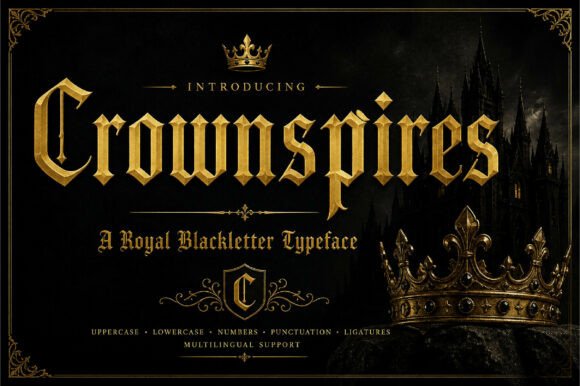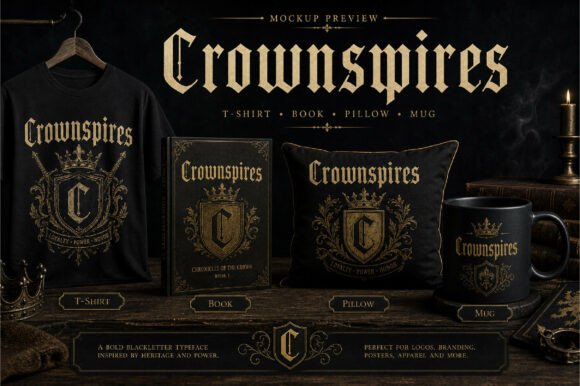
Unleash the Grandeur of the Middle Ages with Crownspires Font
Step into the majestic world of Gothic typography with Crownspires, a regal display font that embodies the essence of medieval grandeur. This stunning blackletter script, infused with bold, spearhead-like strokes, is designed to add an air of authority, tradition, and mystique to your designs. Whether you’re a designer, craftsperson, or simply someone who appreciates the beauty of Gothic typography, Crownspires is the perfect choice for projects that demand a touch of sophistication and elegance.
The Majesty of Gothic Typography
Crownspires is more than just a font – it’s an experience. Its striking austerity and bold strokes evoke the grandeur of medieval architecture, while its intricate details and unique personality add a touch of mystique to any design. This royal, Gothic-style font is perfect for projects that require a sense of tradition, power, and class. From emblematic logos and brand identities to dramatic poster headlines and album covers, Crownspires is the ideal choice for designers seeking to create a lasting impression.
Design Possibilities with Crownspires
The versatility of Crownspires is one of its most compelling features. This majestic font can be used in a wide range of design applications, including:
- Emblematic Logos: Create a lasting impression with a logo that exudes power, tradition, and sophistication.
- Brand Identities: Establish a strong brand presence with a font that commands attention and respect.
- Dramatic Poster Headlines: Grab attention with bold, eye-catching headlines that evoke the grandeur of the middle ages.
- Album Covers: Add a touch of mystique to your music designs with a font that’s perfect for album covers and music branding.
- Tattoo-Inspired Art Forms: Create striking designs that showcase the beauty of Gothic typography.
- Fashion Imprints: Elevate your fashion designs with a font that exudes luxury, tradition, and sophistication.
- Merchandise Designs: Create eye-catching merchandise that stands out from the crowd.
- Premium Packaging: Add a touch of elegance to your packaging designs with a font that’s perfect for luxury brands.
- Event Graphic Elements: Create memorable event branding with a font that’s sure to leave a lasting impression.
Crafting a Gothic Logo, Medieval Poster, or Deluxe Branding Identity
If you’re looking to create a Gothic logo, medieval poster, or deluxe branding identity, Crownspires is the perfect choice. Its unique personality and striking design make it an excellent fit for projects that require a touch of sophistication and elegance. Here are some tips for using Crownspires in your designs:
- Experiment with Ligatures: Crownspires features a range of ligatures that can add an extra layer of authenticity to your designs.
- Play with Contrast: Combine Crownspires with other fonts to create striking contrast and visual interest.
- Emphasize Details: Take advantage of Crownspires’ intricate details to add depth and texture to your designs.
Crownspires is more than just a font – it’s a gateway to a world of medieval grandeur and Gothic elegance. With its striking design, unique personality, and versatility, this majestic font is perfect for designers and craftspersons seeking to add a touch of sophistication and power to their projects. Whether you’re creating a Gothic logo, medieval poster, or deluxe branding identity, Crownspires is the ideal choice. So why wait? Immerse yourself in the grandeur of the middle ages with Crownspires – the ultimate Gothic display font.